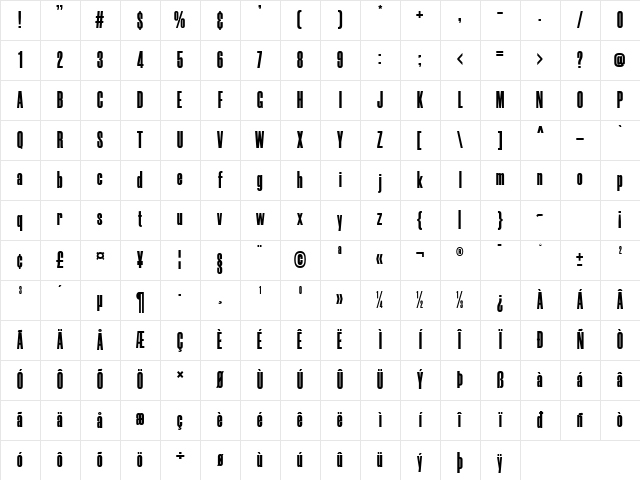
Morganite is a composed and adaptable typeface that performs quietly and consistently across a wide range of design contexts.
Pro Tip: Use Morganite in both headline and body roles to test its range before committing to a single application.